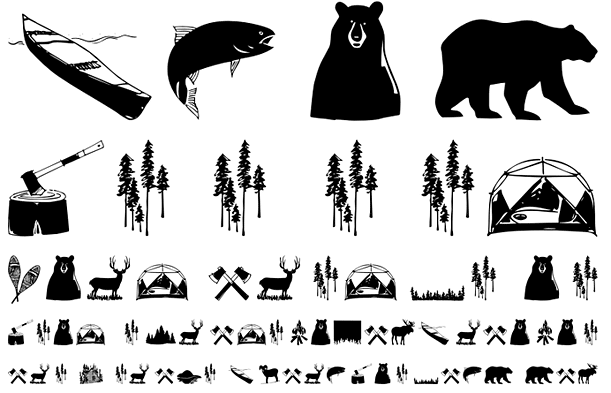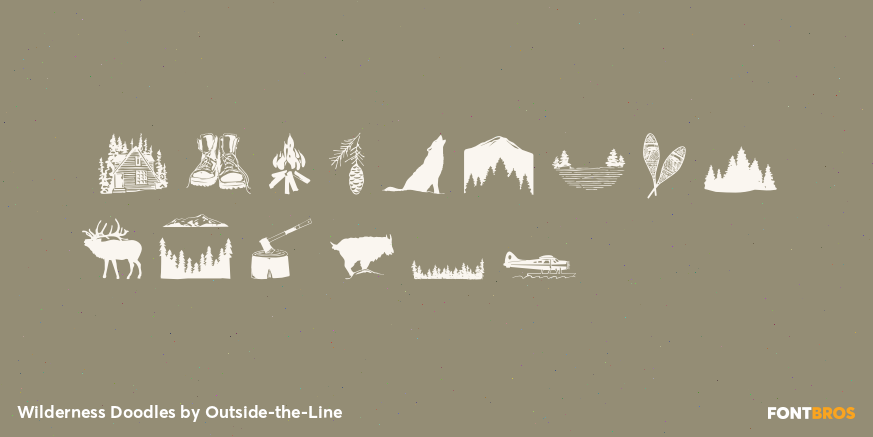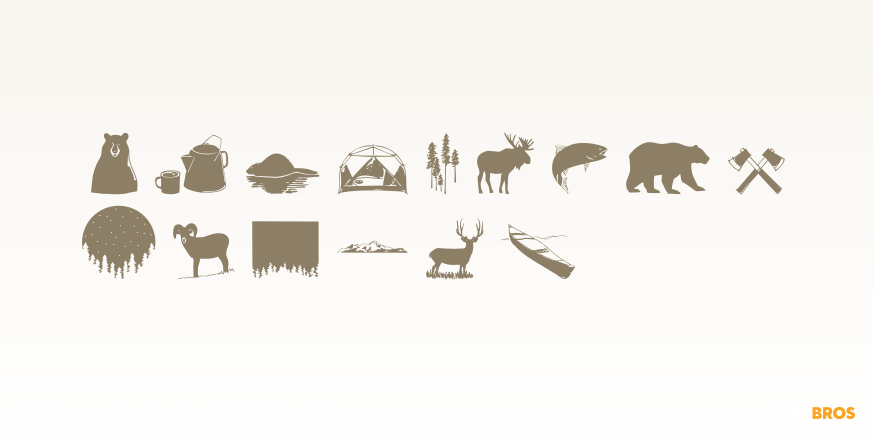
Wilderness Doodles
Font Family by Outside-the-Line
From boots to bears? Wilderness Doodles, an Alaskan inspired doodle font of 30 Northwoods illustrations. It is full of water and trees and mountains. Silhouettes of fish, moose, beaver, bears, elk, wolf, deer and sheep. Camping and hunting boots, float plane, coffee pot, cabin, tent, ax, hatchets, snowshoes, canoe and more. Create ads, invitations, store signage, cards, placemats. All with a outdoorsy Northwoods feel.